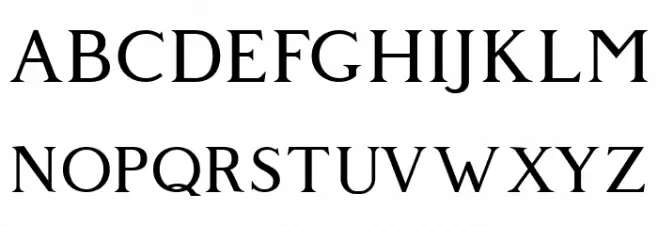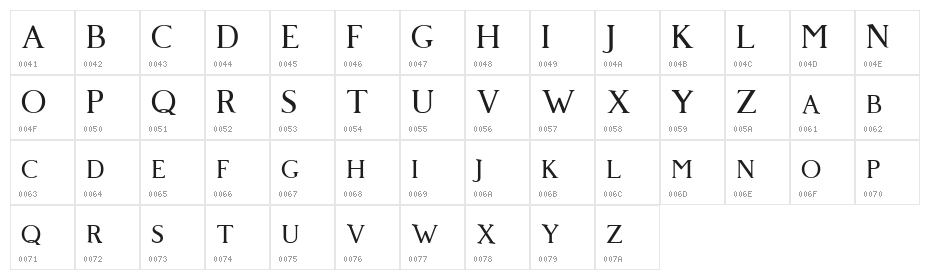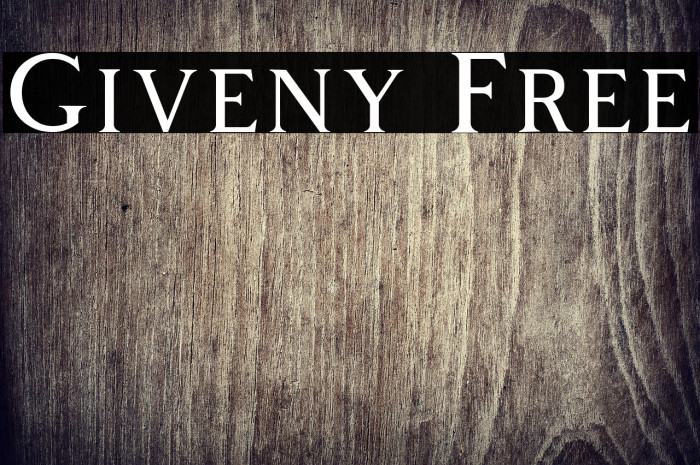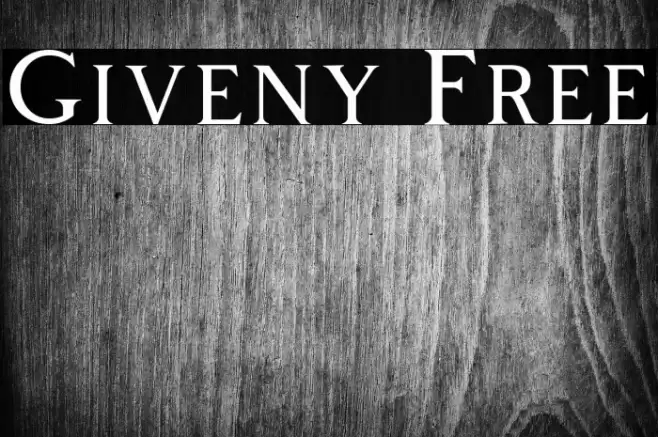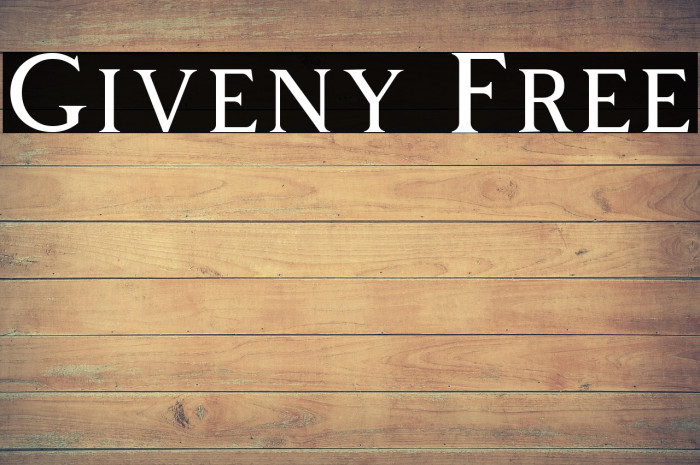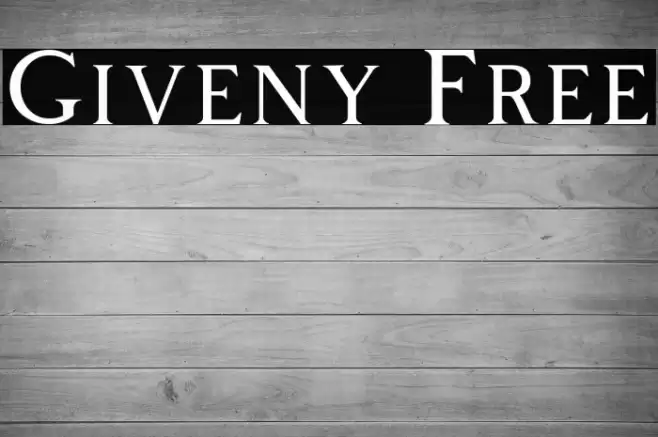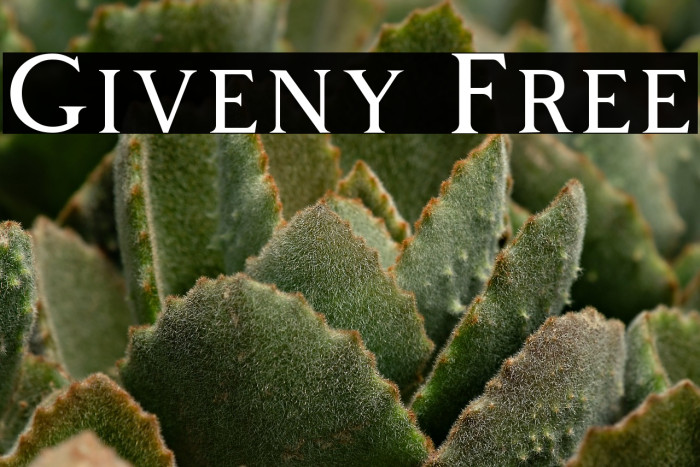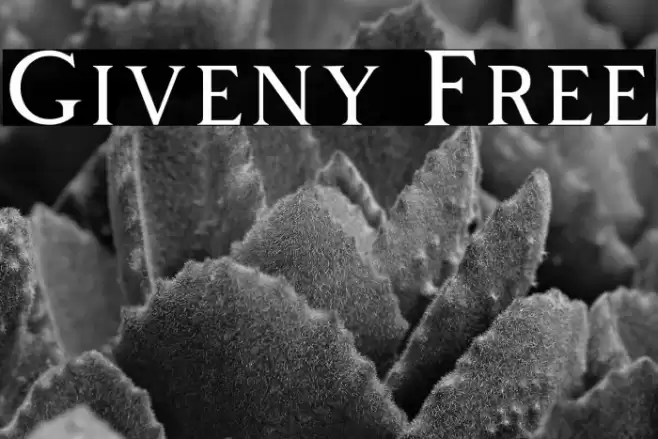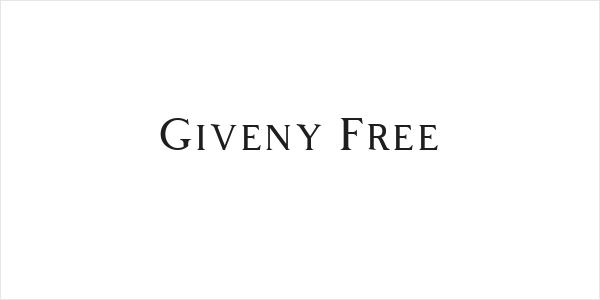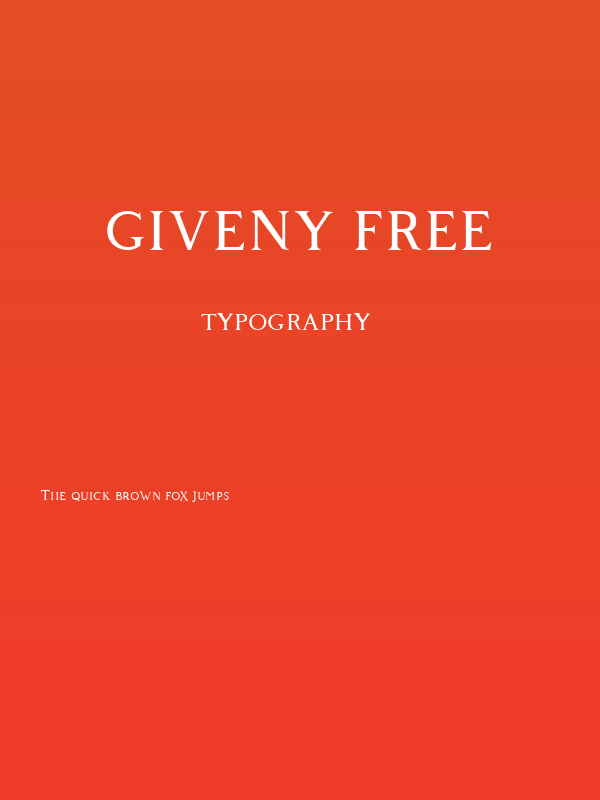
Giveny Free Font
Giveny Free Description
This font exhibits a classic serif style with elegant and refined strokes. The characters are well-proportioned, featuring distinct serifs that add a touch of sophistication. The uppercase letters are bold and commanding, while the lowercase letters maintain a consistent and harmonious flow. The numerals are clear and easily readable, making them suitable for various applications. The special characters are designed with the same attention to detail, ensuring they blend seamlessly with the rest of the font. Overall, this font exudes a timeless and professional appearance, ideal for formal and traditional projects.